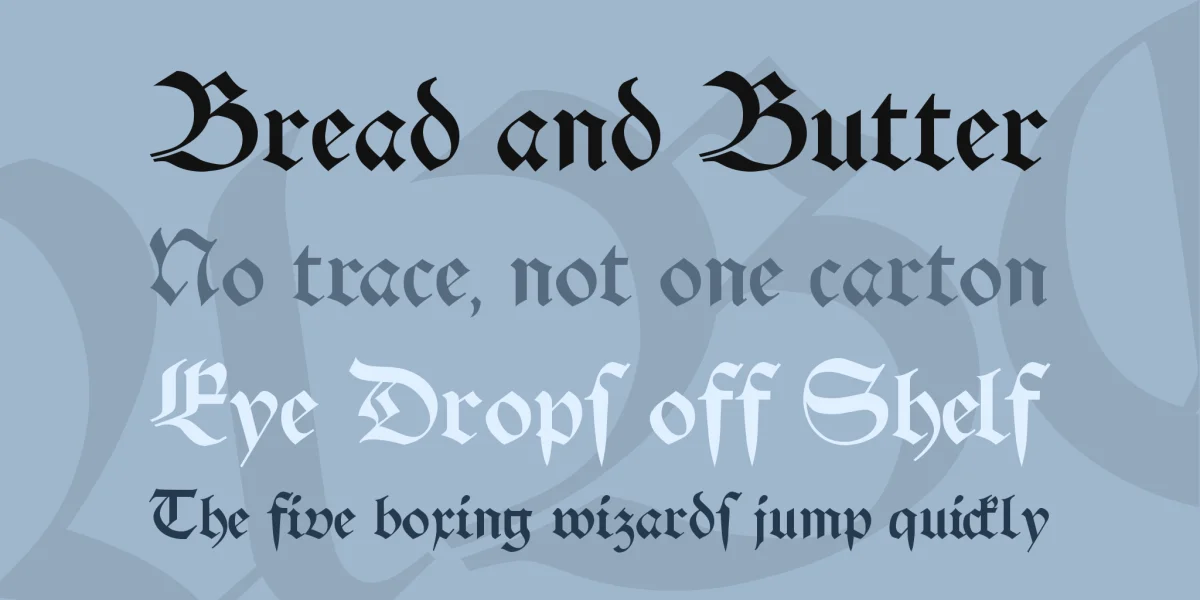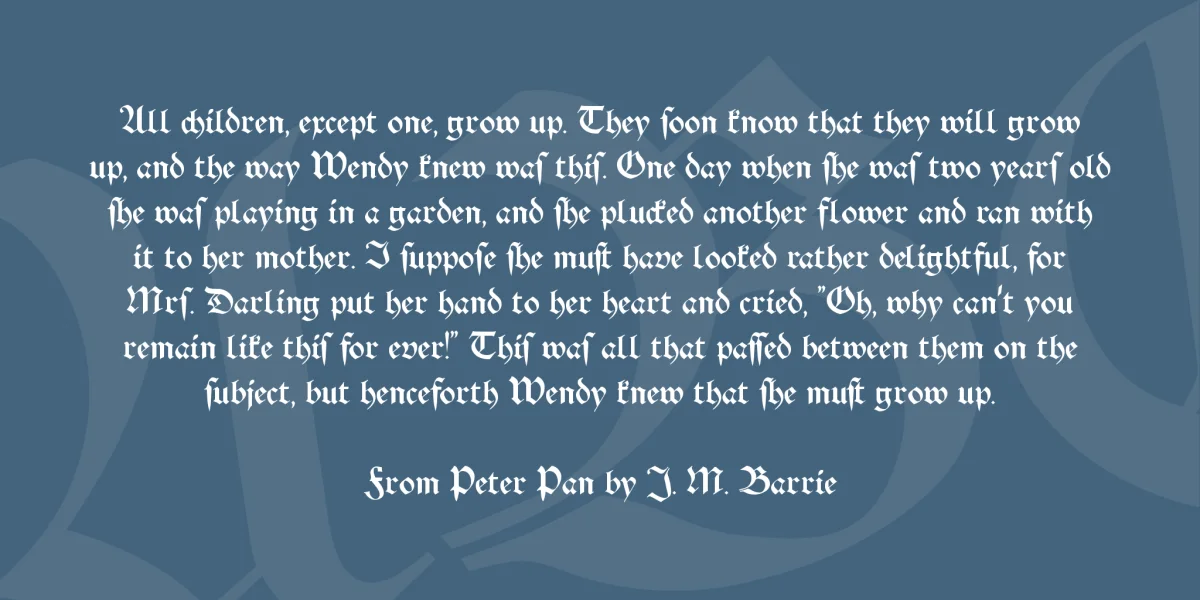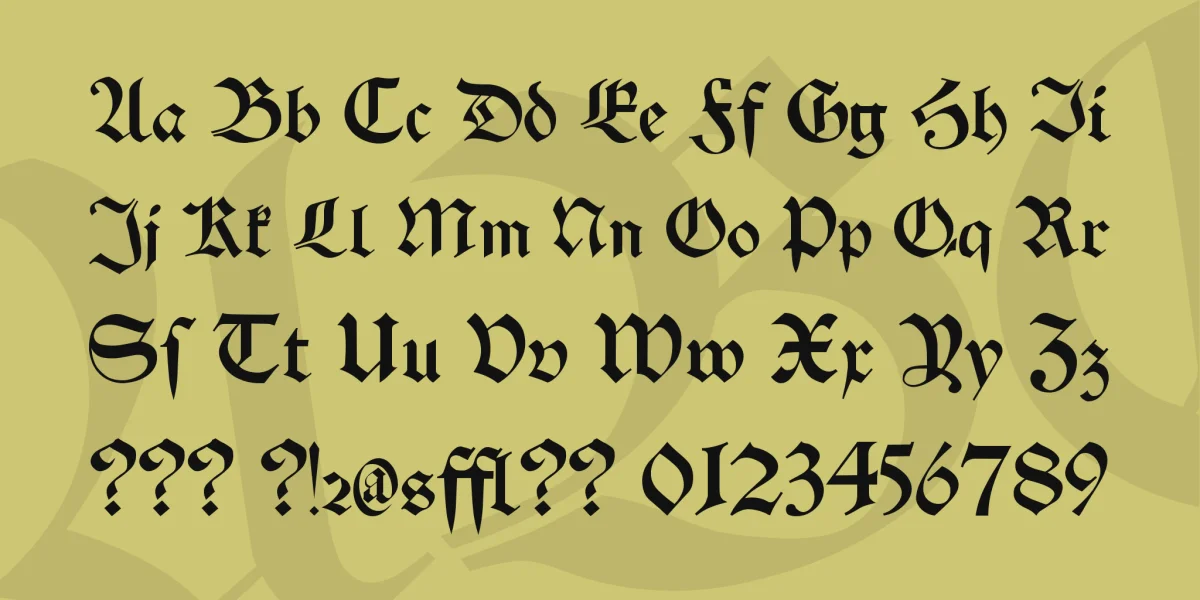
This is my oldest writing in a double sense. For one, it was my first font, Djerba before, and for the second it is a very old script, actually the "Alte Schwabacher" - just go to copyright hassles out of the way, I'm here on behalf rotated slightly :-)
The "Schwabacher" was a half-century (about 1480-1530) in Germany, the predominant publication. Due to the popular seals of Hans Sachs was everywhere known and popular. Most importantly, they gained distribution through the Reformation. Wittenberg, joined as a city next to equal Nuremberg, Mainz, Augsburg and Strasbourg. All the works of Luther and the other Reformers were printed in the "Schwabacher". However, with far more ligatures and letter varieties is an extremely uniform set of image to do with always the same word space - this is of course not at a computer font. Too bad ...
A few important ligatures and the long? / S round I certainly have indulged in writing - see the table!